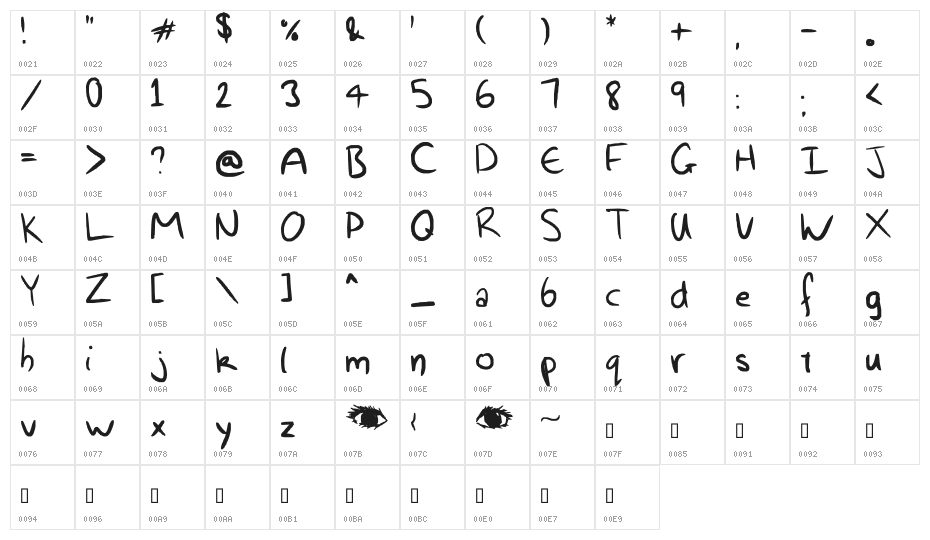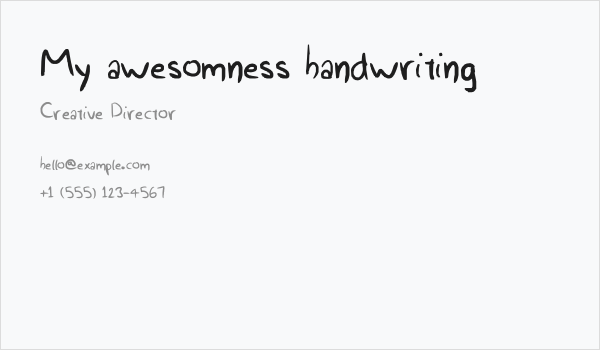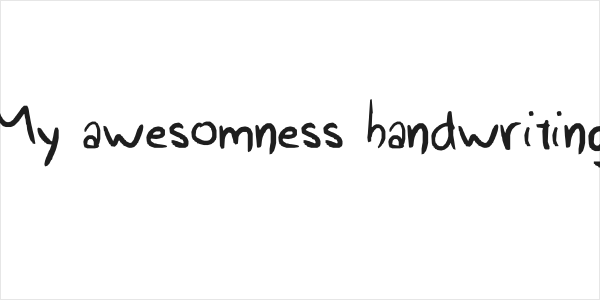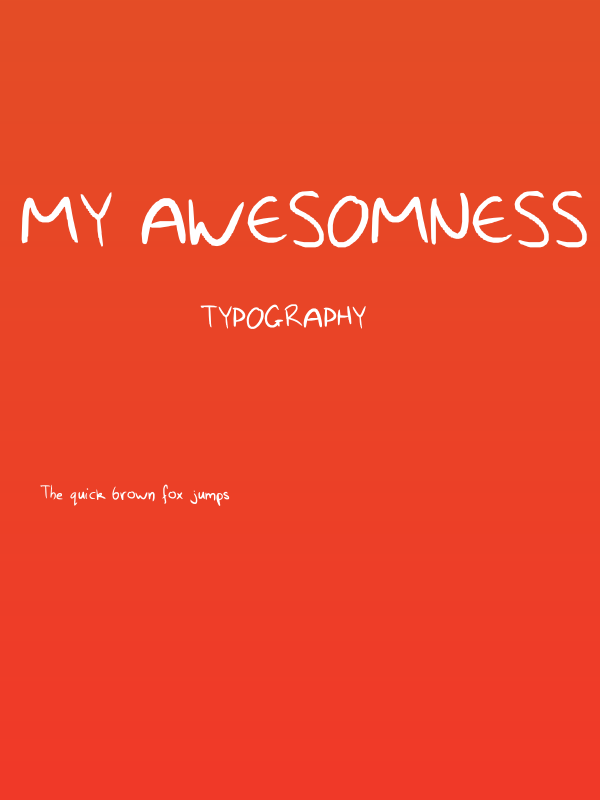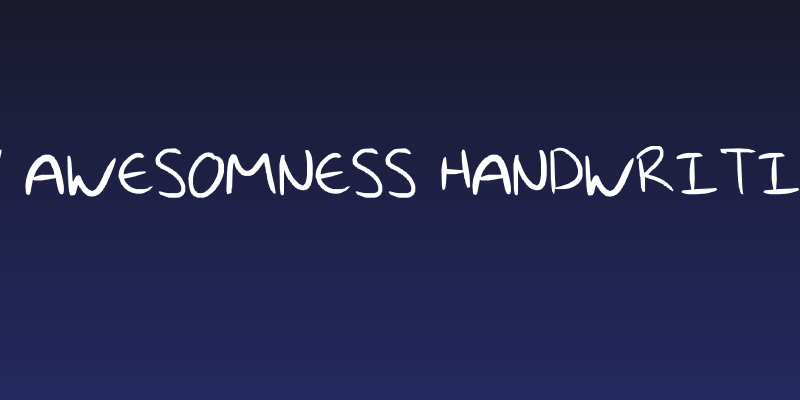
My awesomness handwriting Font
My awesomness handwriting Description
This font exudes a casual and playful vibe, reminiscent of authentic handwriting. The characters are uneven and slightly irregular, adding a personal touch that mimics the spontaneity of a handwritten note. The strokes are bold and confident, with a consistent thickness that maintains readability while conveying a sense of informality. The uppercase and lowercase letters are distinct, with the lowercase characters showing a more pronounced variation in height and slant. Numbers and special characters follow the same handwritten style, ensuring a cohesive look across all text. This font is perfect for projects that require a personal, approachable, and friendly feel.